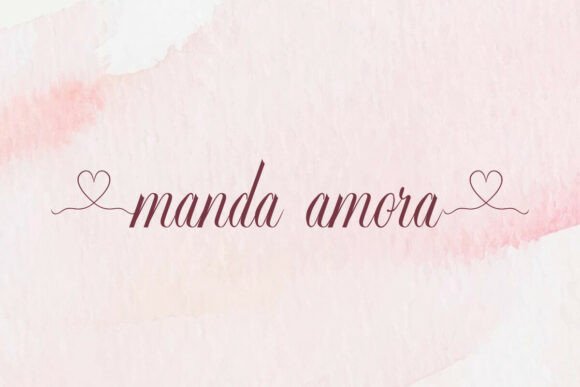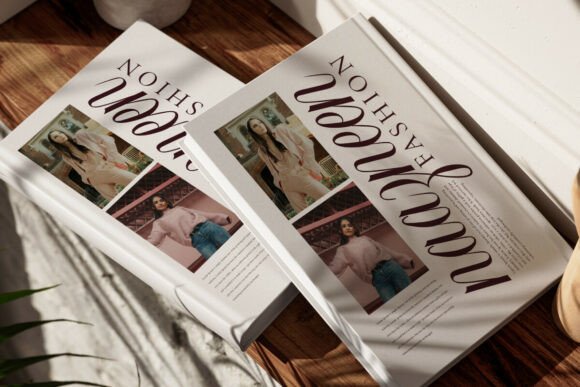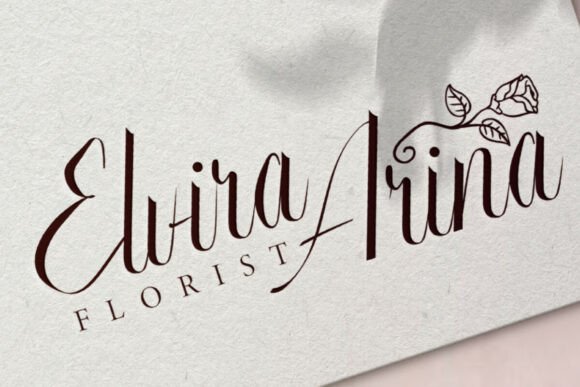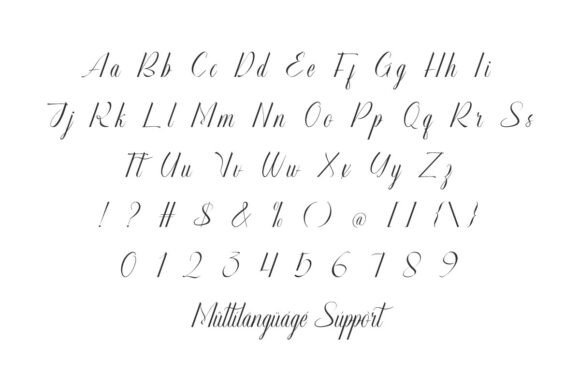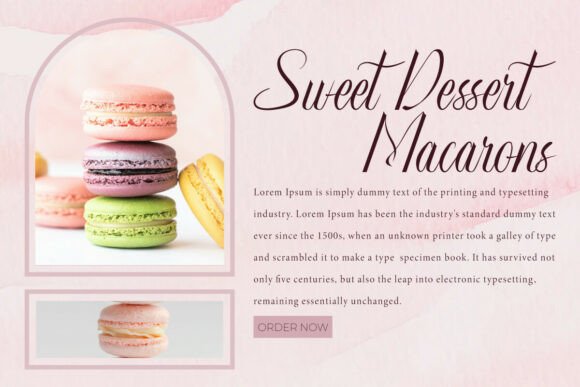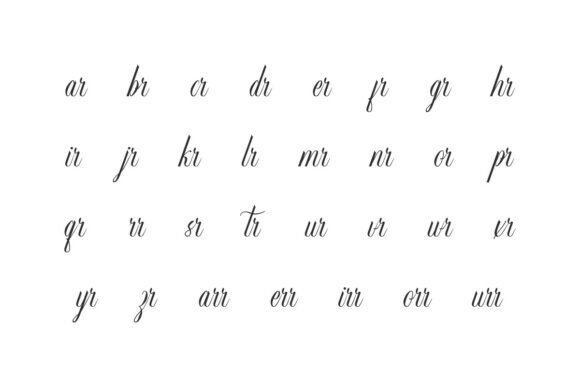
Introduction to Manda Amora Font Font
Fonts play a crucial role in design, and the Manda Amora Font font is a typeface that brings both character and versatility to any project. Whether you’re working on a branding project, a website, or a print design, the Manda Amora Font font offers a unique style that can elevate your work.
If youβre looking for a font that feels soft, personal, and beautifully handwritten, Manda Amora is your perfect match.
This elegant calligraphy font combines handwriting and signature style, making it ideal for designers who want a touch of romance and class in their work Whether youβre creating wedding invitations, logos, business cards, or social media graphics, Manda Amora adapts effortlessly.
Key Features of Manda Amora Font Font
Why Choose Manda Amora Font Font?
The Manda Amora Font font is more than just a typeface β it’s a design tool that helps you communicate your message with style and clarity. Its unique character set and versatile design make it suitable for a wide range of applications, from elegant invitations to bold headlines.
With its carefully crafted letterforms and balanced proportions, the Manda Amora Font font ensures readability and visual appeal across all mediums.
What makes Manda Amora Font font special?
The Manda Amora Font font stands out with its unique design, exceptional readability, and versatility across various design applications.